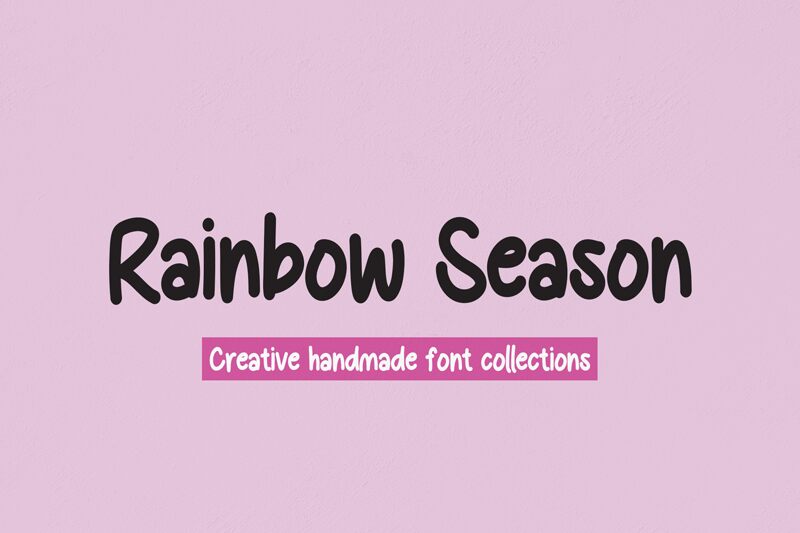
Rainbow Season
Rainbow Season is a playful and whimsical semi-bold font created by scratchones. This handwritten typeface is perfect for projects that require a touch of creativity and fun. From children's books to event invitations, Rainbow Season will add a colorful and charming touch to any design. Its unique style makes it suitable for logo designs, branding, packaging, social media graphics, and more. With its bold strokes and varying widths, Rainbow Season is sure to catch the eye of your audience. Bring the joy of the season into your designs with this delightful font!
the latest style letters are perfect for wall displays, wedding invitations, social media post logos,
advertisements, product packaging, product designs, labels, photography, watermarks, invitations, stationery,
and any project that requires taste handwriting.